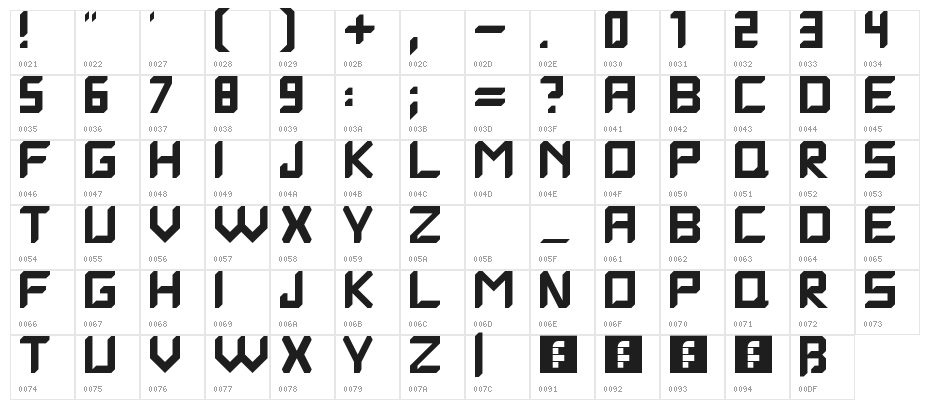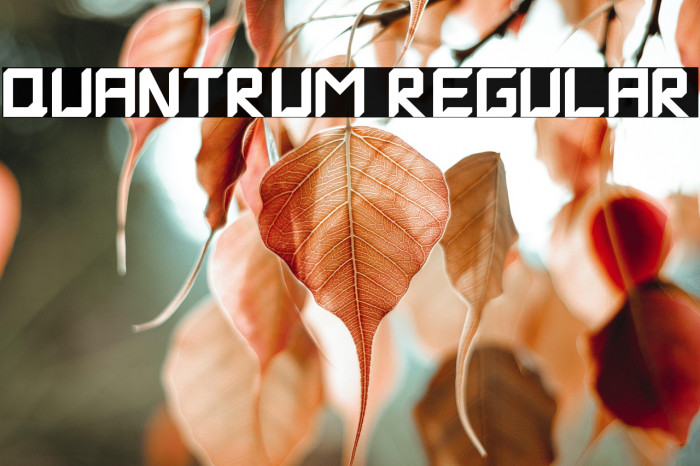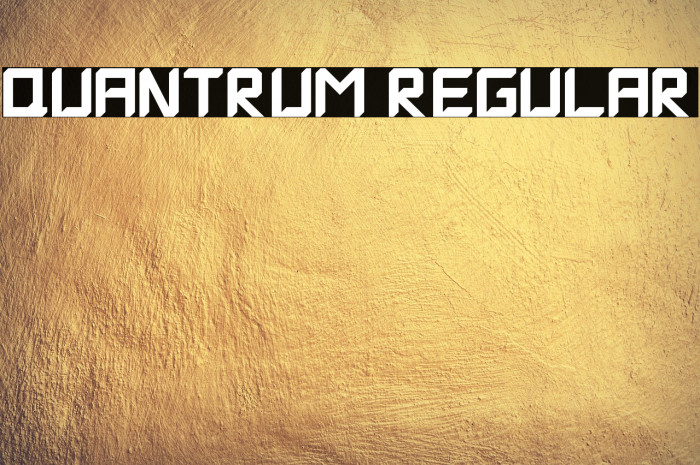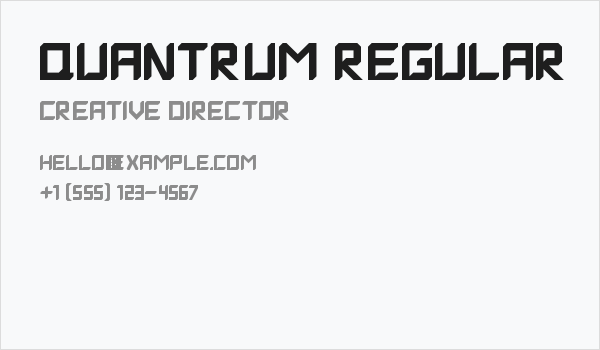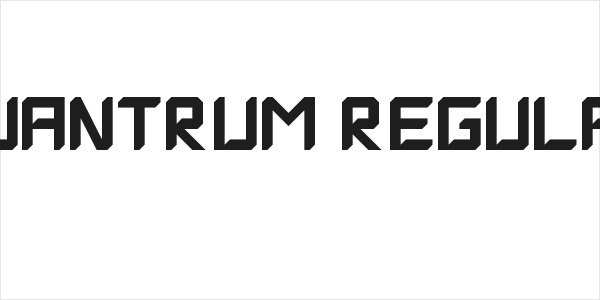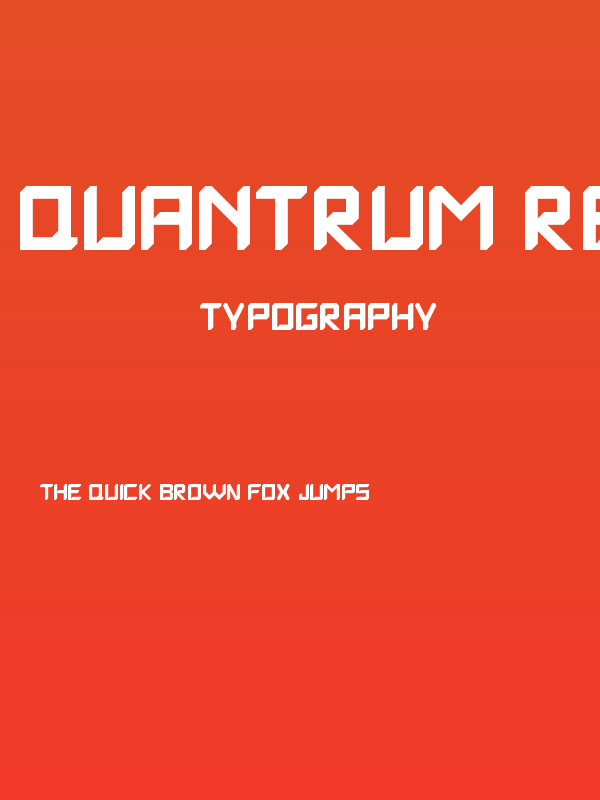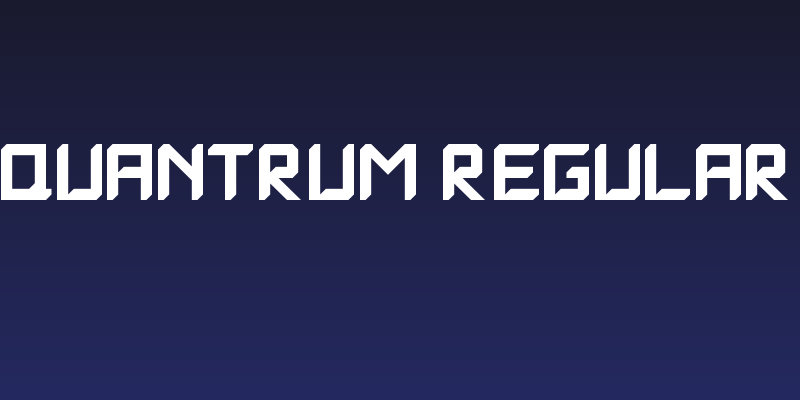
Quantrum Regular Font
Quantrum Regular Description
This font features a bold, geometric design with sharp angles and a futuristic aesthetic. The characters are constructed with straight lines and angular cuts, giving it a modern and edgy appearance. The uppercase and lowercase letters maintain a consistent style, with a uniform width and height that enhances readability. The numerals and special characters follow the same design principles, ensuring a cohesive look across all glyphs. This font's unique style makes it suitable for projects that require a contemporary and tech-inspired feel.
| Proposed Projects | Ideal for technology branding, sci-fi themed posters, video game titles, and modern digital interfaces. |